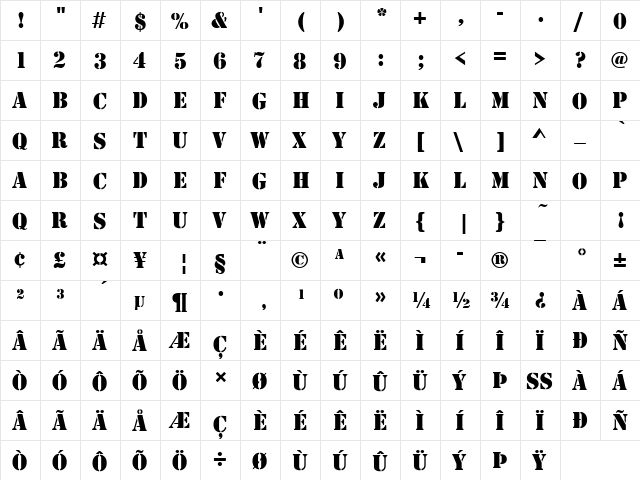
Stencil Becker Regular
Design Context for Stencil Becker Typeface
Stencil Becker has the rough pragmatism of spray-painted stencil signage, adding a raw, street-level authenticity to designs.
A strong choice for packaging that needs edge, warehouse aesthetics, and rough-and-ready visual identities.
Pro Tip: Use Stencil Becker at large sizes on packaging, posters, or apparel where the stencil cutaways read clearly. Avoid small sizes where those gaps become visual noise.